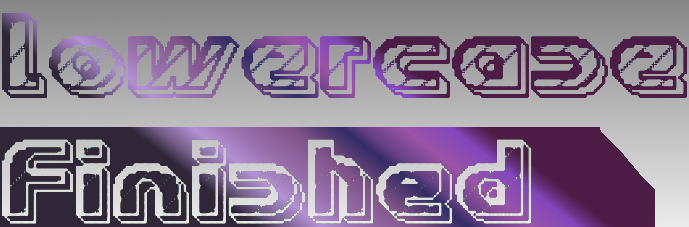
more consistent
the numers are temporary (except for 7)
ngl some stuff could DEFINITELY improve such as the [s] (based on the cursive s) and the eye (hole) on [e]